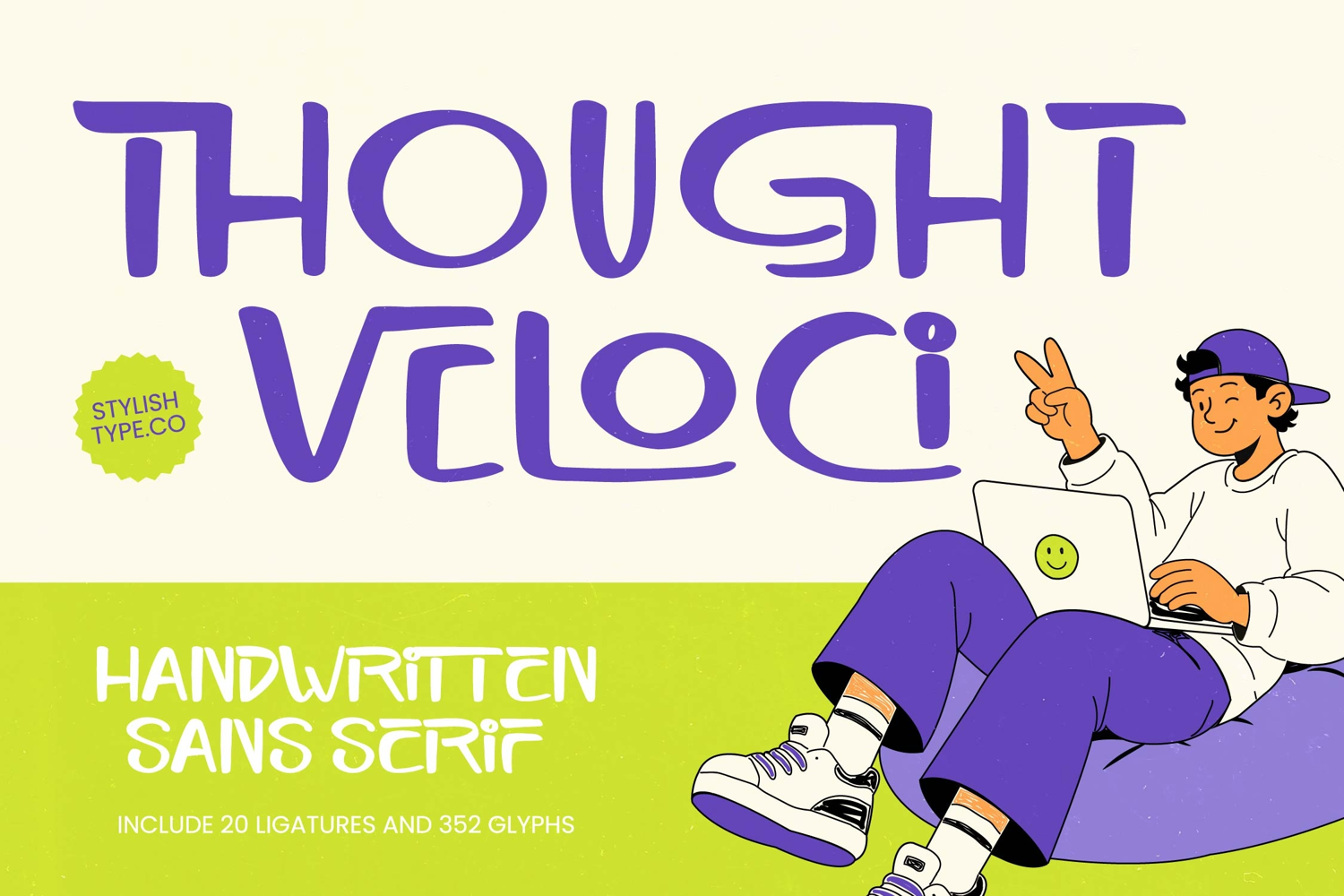
Thought Veloci - Handwritten Sans Serif
Elevate your creative projects with a touch of authentic human energy using Thought Veloci - Handwritten Sans Serif. This contemporary sans serif blends the casual charm of hand-lettering with the structural integrity required for high-end professional projects. Its fluid strokes and playful letterforms evoke a sense of organic approachability, making it the perfect choice for brands looking to establish a genuine connection with their audience through authentic typography.
Precision meets personality in this meticulously crafted typeface that offers both visual flair and technical excellence. Boasting a comprehensive set of 352 glyphs and 20 unique ligatures, Thought Veloci - Handwritten Sans Serif provides designers with the tools to create truly customized typography. The natural rhythm of the characters ensures high legibility while maintaining a distinctive aesthetic, making this a high-performance design asset built to streamline your creative workflow.